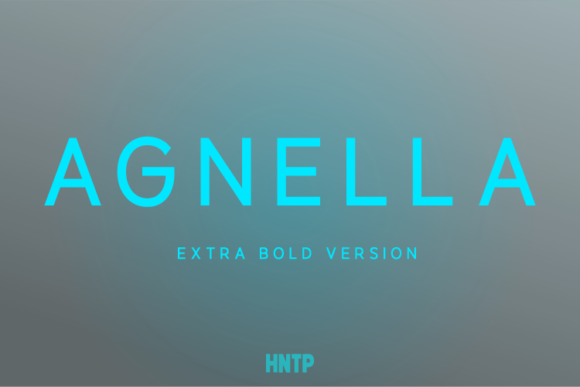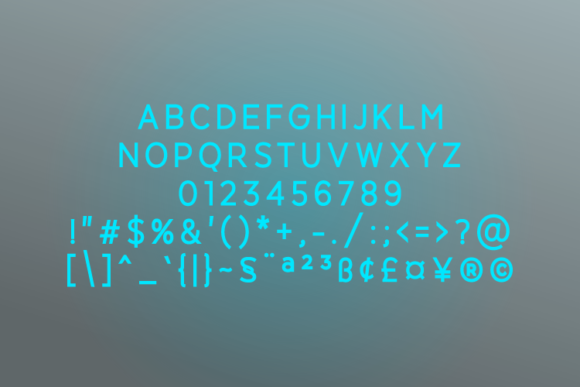
HomeSans Serif FontsAgnella Extra Bold Font Sans Serif Fonts Agnella Extra Bold Font FacebookTwitterPinterestWhatsApp Agnella Extra Bold Font 1 of 2 About Agnella Extra Bold Font Agnella is an effective sans serif with a touch of subtle elegance. Agnella’s vertically and horizontally cut stems make it appear strong and steady. DOWNLOAD NOW People also explored Wallington Font Black Panel Font Fishing Font Retro Vintage Font Surprise Font Keep Forward Fu Font Kadijha Font Dafone Font Charlie Font 300 0 TagsAgnella Extra Bold Font Previous articleAgnella Black FontNext articleAgnella Bold Font LEAVE A REPLY Cancel reply Comment: Please enter your comment! Name:* Please enter your name here Email:* You have entered an incorrect email address! Please enter your email address here Website: Save my name, email, and website in this browser for the next time I comment. Personal Use Free Consequences Personal Use Free Read more about this font Borg Personal Use Free Read more about this font Special Day Personal Use Free Read more about this font Doriath Personal Use Free Read more about this font BLOG Free vs Paid Fonts: Why Investing in Premium Fonts Is Worth It Free vs Paid Fonts: Why Premium Fonts Are Worth It in 2025 The debate of free vs paid fonts continues in the design world. While... Best Fonts for YouTube Videos: Make Your Thumbnails Stand Out Free Fonts Risk: Why Free Fonts Can Be Dangerous for Designers Best Fonts for T-Shirt Design – Top 2025 Picks